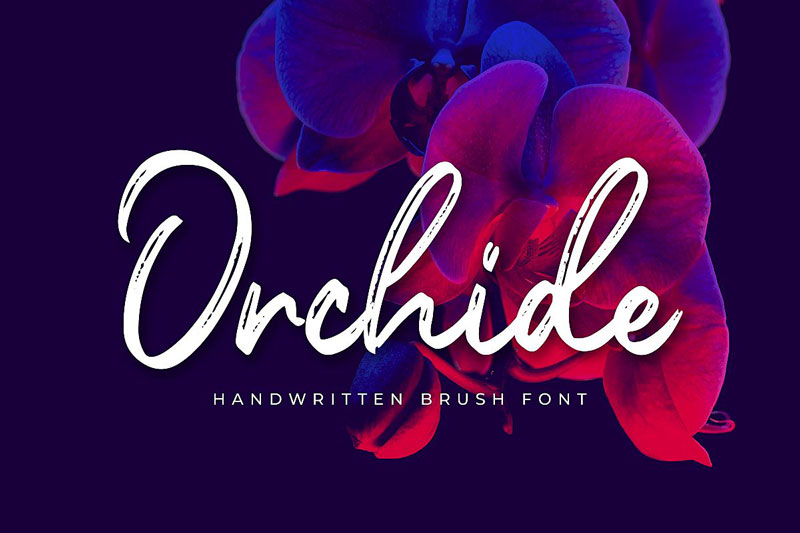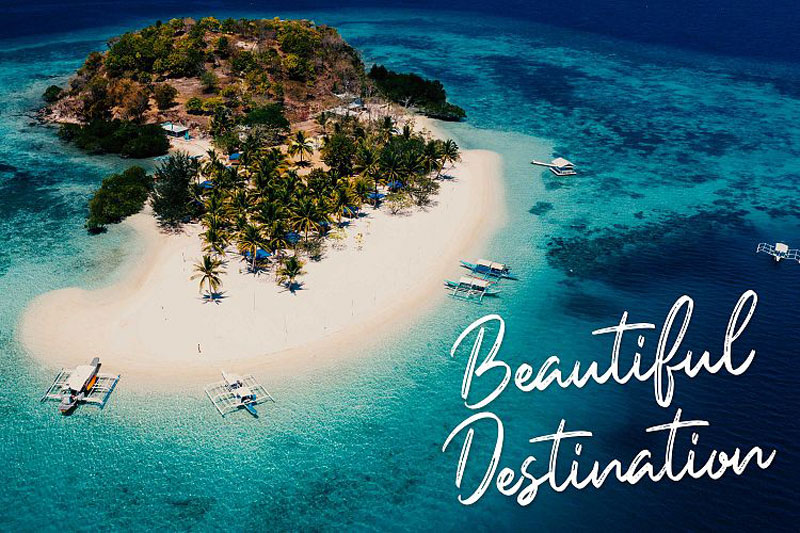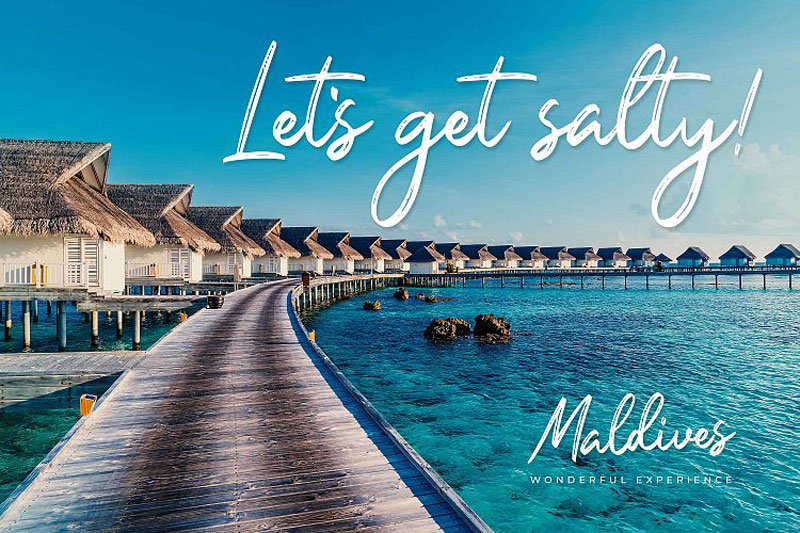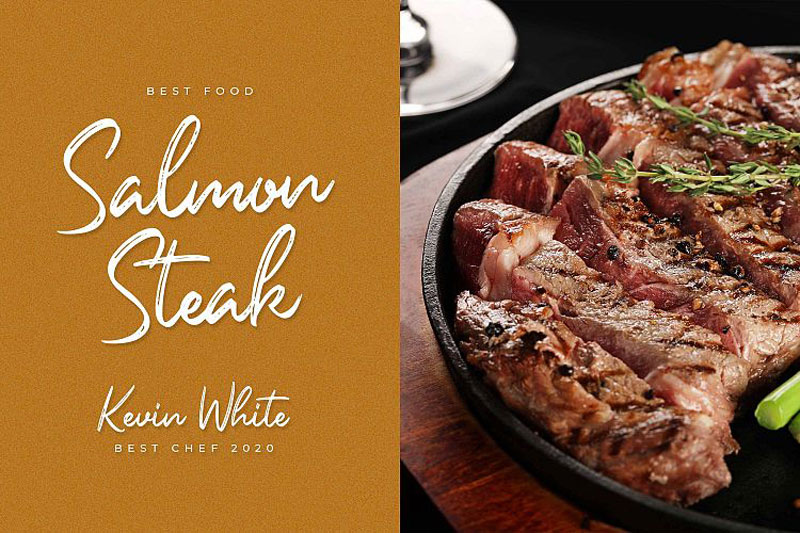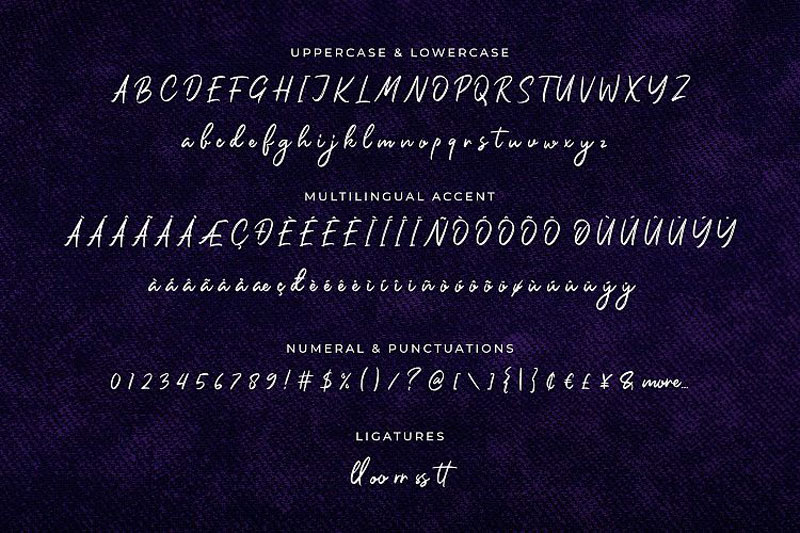
Orchide – Handwritten Brush Font
Introducing Orchide – Handwritten brush is a brush script that is written casually and quickly. Letters are made with brushes on paper. Then scanned and carefully drawn into a vector format. That is why Orchide has a charming, authentic and relaxed characteristic more natural look to your text with a more natural look to your text.
You can activate a Ligature OpenType panel to make these two styles. It also has many alternatives and underlines that make your text and design more interesting.Orchide is perfect for homeware designs, branding projects, Logo design, Quotes product packaging.